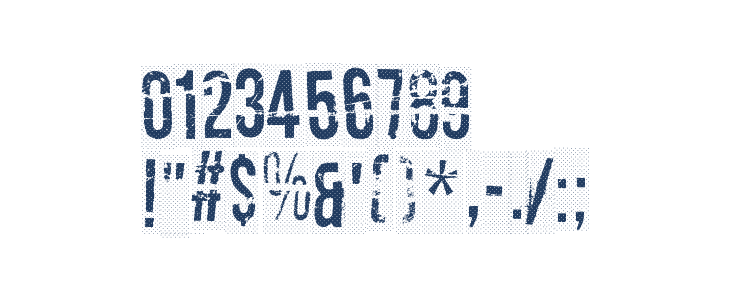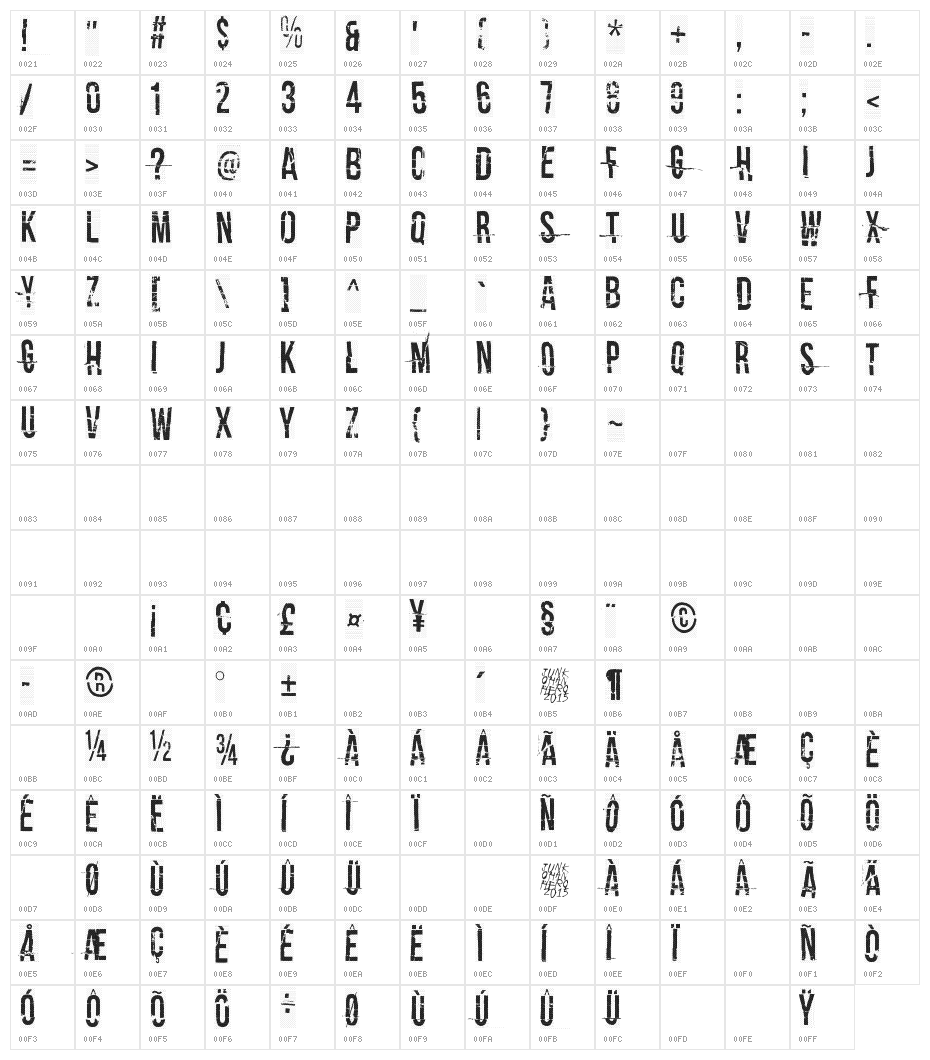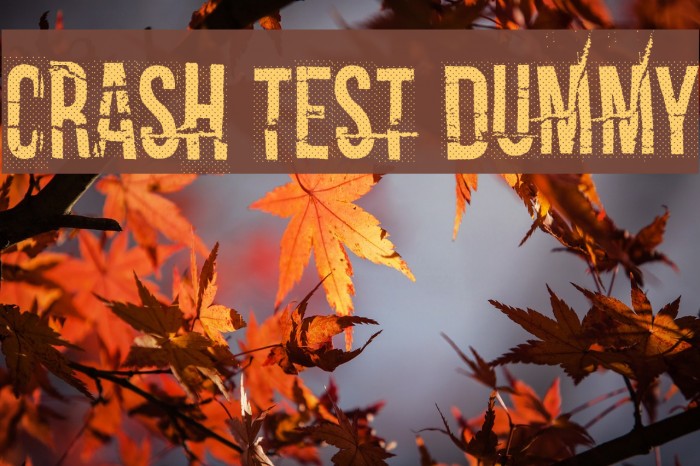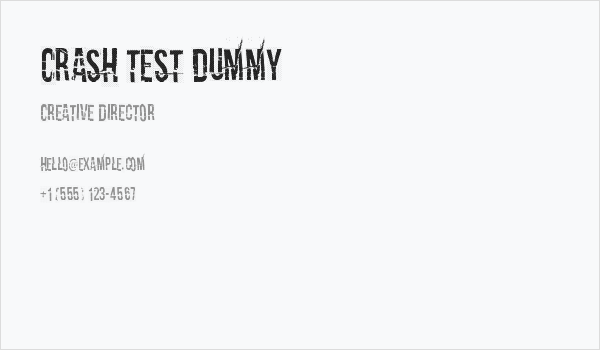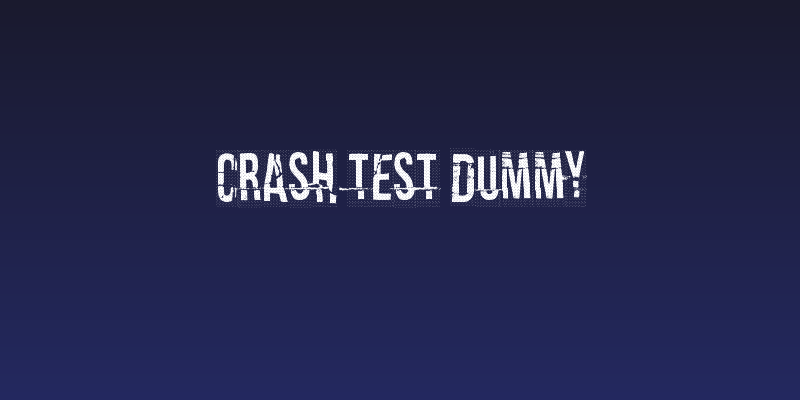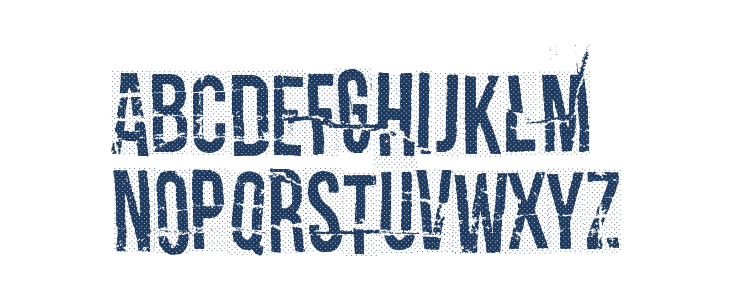
Crash test dummy Font
Crash test dummy Description
This font features a distressed, grunge style with a textured, worn appearance. The characters are bold and uppercase, with a slightly condensed width. The rough, uneven edges and irregular patterns give it a rugged, industrial feel. The font's design is reminiscent of stenciled lettering, often seen in urban or street art contexts. The numbers and special characters maintain the same distressed aesthetic, adding to the overall cohesive look. This font is ideal for projects that require a bold, impactful statement with an edgy, rebellious vibe.
| Overall Style | Grunge, Industrial |
| Proposed Projects | Perfect for album covers, posters, street art designs, and edgy branding projects. |